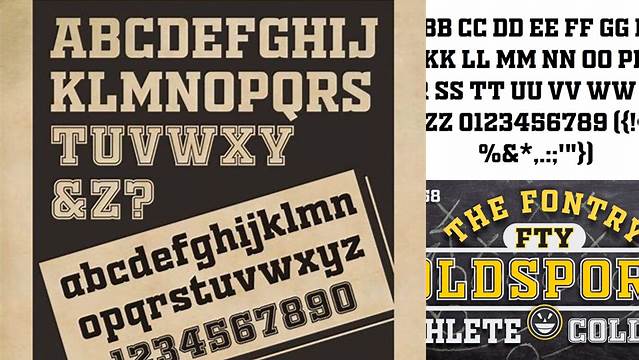
Old Sport Font: Free Downloads & Vintage Design Guide
Introduction: Delving into the Charm of Old Sport Fonts
Hey guys! Are you on the hunt for that perfect vintage touch for your projects? Let’s dive into the world of old sport fonts! These fonts bring a classic, timeless feel to any design, making them ideal for everything from invitations and logos to website headers and branding materials. In this guide, we'll explore what makes old sport fonts so special, where you can find them for free, and how to use them effectively in your projects. Whether you’re a seasoned designer or just starting out, understanding the allure and versatility of old sport fonts can significantly elevate your creative work. These fonts often evoke a sense of nostalgia, reminiscent of vintage sports memorabilia, old-school advertisements, and classic signage. Their unique letterforms, often characterized by bold strokes, serifs, and a slightly distressed appearance, add character and authenticity to your designs. The appeal of old sport fonts lies in their ability to transport viewers to a different era, creating a sense of history and tradition. They are perfect for projects that aim to convey a sense of heritage, craftsmanship, or timeless elegance. Imagine using an old sport font for a restaurant menu to create a vintage diner feel, or for a wedding invitation to add a touch of classic romance. The possibilities are endless, and the right font can truly make your design stand out.
What Makes Old Sport Fonts Unique?
So, what exactly makes old sport fonts stand out from the crowd? It's their unique blend of vintage aesthetics and strong, legible design. Think about the fonts you’ve seen on old baseball jerseys or vintage advertisements – those bold, slightly distressed letters have a distinct charm that modern fonts often lack. Old sport fonts typically feature thick, bold strokes, often with serifs or slab serifs, which give them a sturdy and reliable appearance. Many also incorporate a slightly distressed or textured look, adding to their vintage appeal. This combination of boldness and texture creates a visual impact that draws the eye and conveys a sense of history and authenticity. One of the key characteristics of old sport fonts is their versatility. While they are perfect for projects with a vintage or retro theme, they can also be used in more contemporary designs to add a touch of character and personality. For example, an old sport font might be used in a modern logo to give it a unique edge, or in a website header to create a memorable first impression. The ability to seamlessly blend with different styles and themes is what makes these fonts so valuable in a designer’s toolkit. Furthermore, old sport fonts often come in a variety of styles and weights, allowing for even greater flexibility in design. You might find versions with different levels of distress, or with alternative letterforms and ligatures. This variety ensures that you can find the perfect old sport font for any project, whether you need something subtle and understated, or bold and attention-grabbing. The nuances in each font can make a significant difference in the overall look and feel of your design, so it’s worth exploring different options to find the perfect fit.
Common Characteristics of Old Sport Fonts
Let’s break down the common traits you’ll find in most old sport fonts. You’ll often see bold, blocky lettering, sometimes with a slight slant or italicized appearance, which adds to their dynamic feel. The use of serifs, particularly slab serifs, is also prevalent, giving the fonts a strong and grounded presence. These design elements are crucial for capturing the essence of vintage sports and classic typography. Another defining characteristic is the use of texture and distress. Many old sport fonts feature subtle imperfections, such as rough edges, faded ink effects, or slight irregularities in the letterforms. These details add to the font’s vintage charm, making it look like it has been lifted straight from an old sign or poster. This distressed look is particularly effective for creating a sense of authenticity and history in your designs. In addition to their visual characteristics, old sport fonts are also known for their excellent readability. Despite their decorative elements, these fonts are designed to be easily legible, even in large blocks of text. This is crucial for ensuring that your message is clear and impactful. The balance between aesthetics and readability is what makes old sport fonts so versatile and effective in a wide range of applications. Moreover, the spacing and kerning of old sport fonts are carefully considered to ensure a harmonious and balanced appearance. The letters are designed to fit together seamlessly, creating a cohesive and visually appealing word or phrase. This attention to detail is what sets these fonts apart and makes them a valuable asset for any designer. By understanding these common characteristics, you can better appreciate the unique qualities of old sport fonts and how they can enhance your creative projects.
Where to Find Free Old Sport Fonts
Tips for Finding the Perfect Free Font
Finding the perfect old sport font for your project can feel like searching for a needle in a haystack. But don't worry, we’ve got some tips to help you narrow down your options and find the font that's just right. First, consider the overall tone and style of your project. Are you going for a rugged, vintage look, or something more refined and elegant? Different old sport fonts have different personalities, so choose one that aligns with your project's aesthetic. Think about the specific details of your design. If you’re working on a logo, you’ll want a font that is easily recognizable and legible at various sizes. For headlines and titles, you might opt for a bolder, more attention-grabbing font. If you’re using the font for body text, readability is key, so choose a font with clear letterforms and ample spacing. Another helpful tip is to use font previews and try out different font combinations. Most font websites offer previews that allow you to see how the font looks in different sizes and with different text. Experiment with pairing old sport fonts with other fonts to create a balanced and visually appealing design. For example, you might pair a bold old sport font with a clean, modern sans-serif font for a contrasting effect. Don’t be afraid to try out several different fonts before making a decision. It’s also a good idea to keep a collection of your favorite fonts organized so you can easily access them for future projects. You can use font management software or simply create folders on your computer to organize your fonts. Finally, remember to check the font’s character set. Make sure it includes all the letters, numbers, and symbols you need for your project. Some free fonts may have a limited character set, so it’s important to verify that the font meets your requirements before you commit to using it. By following these tips, you can streamline your font search and find the perfect old sport font to elevate your designs.
How to Use Old Sport Fonts Effectively
Okay, so you've downloaded some awesome old sport fonts – now what? Knowing how to use them effectively is just as important as finding the right fonts in the first place. These fonts have a strong personality, so you'll want to use them strategically to maximize their impact. Think about where the font will be used: headlines, logos, or body text? Each application requires a different approach. The key to using old sport fonts effectively is to balance their vintage charm with modern design principles. They can add a unique touch to your projects, but overusing them can make your design feel cluttered or outdated. By understanding the nuances of these fonts and how they interact with other design elements, you can create visually stunning and impactful designs. Let’s explore some best practices for incorporating old sport fonts into your projects and making them truly shine.
Best Practices for Incorporating Old Sport Fonts
When incorporating old sport fonts into your designs, it’s important to use them thoughtfully. One of the best practices is to use these fonts sparingly. Due to their strong character, old sport fonts work best in headlines, logos, and short bursts of text rather than in large blocks of body copy. Overusing them can make your design feel overwhelming and difficult to read. Consider using an old sport font for your headline and pairing it with a clean, modern sans-serif font for the body text. This creates a visually appealing contrast and ensures that your content remains legible. Another important tip is to pay attention to the font’s size and spacing. Old sport fonts often have intricate details and textures, which can become lost if the font is too small. Make sure the font is large enough to be easily readable, and adjust the letter spacing and line height as needed to create a balanced and harmonious appearance. Also, think about the color palette you’re using. Old sport fonts often look great in vintage-inspired color schemes, such as muted tones, earth colors, or classic combinations like black and white. However, they can also work well in more modern color palettes, depending on the overall design concept. Experiment with different colors and combinations to find what works best for your project. Finally, consider the context in which the font will be used. Old sport fonts are particularly well-suited for projects with a vintage or retro theme, but they can also be used in more contemporary designs to add a touch of character and personality. Think about the message you’re trying to convey and how the font can help you achieve that goal. By following these best practices, you can effectively incorporate old sport fonts into your designs and create visually compelling and impactful results.
Examples of Effective Use
To really get a feel for how to use old sport fonts effectively, let's look at some examples. Think about classic sports branding: logos for vintage baseball teams or boxing posters often utilize these fonts to create a sense of history and tradition. In these contexts, the fonts are usually paired with bold graphics and vintage-inspired color palettes to complete the look. Another great example is in the branding for craft breweries or distilleries. Many of these businesses use old sport fonts to convey a sense of craftsmanship and heritage. The fonts often appear on labels, signage, and websites, adding a touch of old-world charm to the brand’s identity. You might also see old sport fonts used in restaurant menus, particularly for establishments with a vintage or diner-style theme. The fonts can evoke a sense of nostalgia and create a welcoming atmosphere for customers. In the world of wedding invitations and stationery, old sport fonts can add a touch of elegance and sophistication. They can be used for headings, monograms, or even entire invitations, creating a timeless and romantic feel. Furthermore, old sport fonts can be used effectively in website design. They can add character to headings, navigation menus, or call-to-action buttons, making the website stand out from the crowd. However, it’s important to use them sparingly and pair them with more modern fonts for body text to ensure readability. By studying these examples, you can gain a better understanding of how old sport fonts can be used in different contexts and how they can enhance the overall design. Experiment with different applications and find creative ways to incorporate these fonts into your own projects.
Conclusion: Embrace the Timeless Appeal of Old Sport Fonts
So there you have it, guys! Old sport fonts are a fantastic way to add a touch of vintage charm and character to your design projects. From understanding what makes them unique to finding them for free and using them effectively, you’re now equipped to make the most of these timeless fonts. Whether you’re designing a logo, creating a website, or crafting invitations, old sport fonts can help you achieve a classic and memorable look. Remember, the key is to use them thoughtfully and balance their vintage appeal with modern design principles. Experiment with different fonts, pairings, and applications to discover what works best for your style and project goals. Don’t be afraid to push the boundaries and find creative ways to incorporate old sport fonts into your designs. By embracing the versatility and charm of these fonts, you can elevate your work and create visually stunning results. So go ahead, explore the world of old sport fonts and let your creativity shine! These fonts offer a unique blend of nostalgia and sophistication, making them a valuable asset for any designer. By understanding their characteristics and best practices for use, you can harness their power to create impactful and memorable designs. Whether you’re a seasoned professional or just starting out, old sport fonts can help you add a touch of timeless elegance to your projects. So, start exploring the vast collection of free fonts available online and discover the perfect old sport font to bring your creative vision to life. Happy designing!